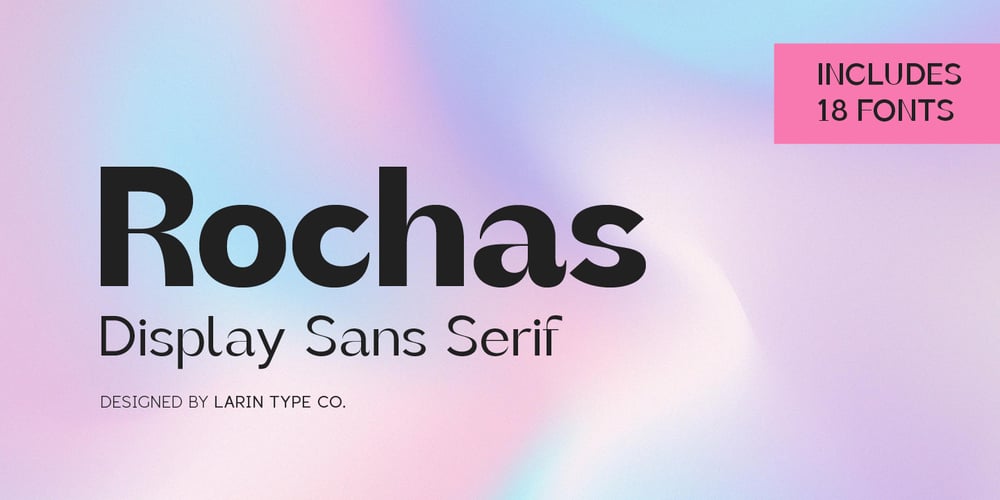
Rochas
Rochas font
Rochas Font Family was designed by Pavel Larin and published by Larin Type Co. Rochas contains 18 styles and family package options. Rochas is a modern sans serif display font family with a bright and defiant appearance due to its unusual contrast. It includes 9 weight and italics to them from thin to black. It is versatile and suitable for a wide range of applications. With it, you can create logos, labels, use in advertising, packaging, branding, book and magazine covers, cosmetics, banners, posters, headlines, descriptions and much more.